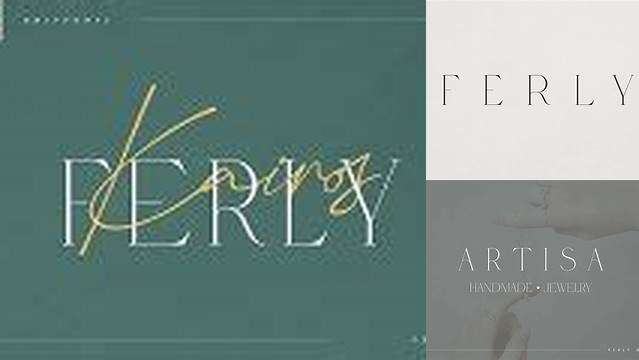
Ferly Free Font: Your Creative Edge
Hey everyone! Are you ready to inject some serious personality into your design projects? Then you absolutely have to hear about Ferly Free Font. This isn't just another typeface; it's a game-changer, a secret weapon, and a way to make your work genuinely stand out. We're diving deep into everything Ferly, from its unique characteristics to how you can use it to create stunning visuals. Let's get started, shall we?
What Makes Ferly Font Special?
Okay, so what actually makes Ferly Font so special? Well, a bunch of things! First off, itβs got this incredible versatility. You can use it for everything from bold headlines to delicate body text. It's like the Swiss Army knife of fonts! Beyond that, there's a certain playful elegance to it. It's not stuffy or boring; it's got character, a distinct personality that shines through in every letter. This makes it perfect for branding, websites, posters, and anything else where you want to make a statement. Seriously, guys, give Ferly a try β you won't regret it!
Unleashing Your Creativity with Ferly
Imagine you're starting a new project and need a font that speaks volumes. Ferly Font can be your go-to choice. Picture this: a vibrant poster for a local music festival, with "Ferly" splashed across the top in a bold, eye-catching style. Or maybe a sleek, modern website for a tech startup, using "Ferly" in the headings to add a touch of personality. The possibilities are truly endless. One of the coolest things about Ferly is how it adapts to different design styles. It can be modern and minimalist, or retro and whimsical, depending on how you use it. This flexibility is a major asset, allowing you to maintain a consistent brand identity across all your materials while still keeping things fresh and exciting. So, next time you're feeling stuck in a creative rut, remember Ferly β it might just be the spark you need!
Ferly Font: A Deep Dive into its Unique Characteristics
Ferly Font isn't just any font; it has a unique set of characteristics that make it stand out from the crowd. From its meticulously crafted curves to its perfectly balanced letterforms, every detail has been carefully considered. The fontβs weight is just right β not too heavy, not too light β making it incredibly readable in a variety of sizes and contexts. But what really sets Ferly apart is its personality. It has a certain warmth and friendliness that makes it feel inviting and approachable. This is a font that people will connect with on an emotional level, which is crucial for building brand loyalty and creating a lasting impression. So, when you're choosing a font, remember that it's not just about aesthetics; it's about conveying a feeling, and Ferly excels at that.
Using Ferly for Branding: Creating a Lasting Impression
When it comes to branding, the font you choose can make or break your image. Ferly Font offers a fantastic opportunity to create a lasting impression. Think about some of the world's most iconic brands β they all have a distinct visual identity, and their font plays a crucial role in that. By using Ferly consistently across all your branding materials, from your logo to your website to your marketing collateral, you can create a cohesive and recognizable brand image. Ferly's unique personality can help you stand out from the competition and communicate your brand values effectively. Whether you're going for a modern, playful, or sophisticated look, Ferly can be adapted to suit your needs. So, if you're looking to elevate your branding game, consider incorporating Ferly Font into your strategy β it could be the missing piece of the puzzle.
Ferly Font in Web Design: Enhancing User Experience
In the world of web design, user experience is paramount. A well-chosen font can significantly enhance readability, visual appeal, and overall engagement. Ferly Font offers a great option for improving user experience. Its clean lines and balanced letterforms make it easy to read on screens of all sizes, whether it's a desktop computer, a tablet, or a smartphone. By using Ferly in your website's headings and body text, you can create a visually appealing and user-friendly experience that keeps visitors coming back for more. Furthermore, Ferly's versatility allows you to create a consistent brand identity across your website and other marketing channels, reinforcing your brand message and building trust with your audience. So, if you're looking to optimize your website for user experience, don't overlook the importance of font selection β Ferly Font might just be the perfect choice.
Designing Logos with Ferly: Making Your Mark
Your logo is the face of your brand, so it's essential to choose a font that accurately reflects your identity and values. Ferly Font provides a unique opportunity to design a logo that truly stands out. Its distinct personality and versatility make it suitable for a wide range of industries and styles. Whether you're creating a logo for a tech startup, a creative agency, or a local bakery, Ferly can be adapted to suit your needs. You can experiment with different weights, sizes, and colors to create a logo that is both visually appealing and memorable. Furthermore, Ferly's scalability ensures that your logo will look great on everything from business cards to billboards. So, if you're looking to make your mark with a distinctive logo, consider exploring the possibilities with Ferly Font β it could be the foundation of your brand identity.
Ferly Font for Print Materials: From Business Cards to Brochures
While digital design often takes center stage, print materials still play a vital role in marketing and communication. Ferly Font translates beautifully to print, making it an excellent choice for everything from business cards to brochures. Its clean lines and balanced letterforms ensure that your text is legible and visually appealing, even in smaller sizes. By using Ferly consistently across all your print materials, you can create a cohesive brand identity that reinforces your message and builds recognition. Whether you're designing a sleek and professional business card or a vibrant and informative brochure, Ferly can help you achieve your desired look and feel. So, don't underestimate the power of a well-chosen font in print β Ferly Font could be the key to creating impactful and memorable marketing materials.
Combining Ferly with Other Fonts: Creating Harmonious Designs
While Ferly Font is a beautiful and versatile typeface on its own, it can also be combined with other fonts to create even more interesting and harmonious designs. The key is to choose fonts that complement Ferly's personality and style. For example, you might pair Ferly with a classic serif font like Times New Roman for a sophisticated and timeless look. Or, you could combine it with a modern sans-serif font like Helvetica for a clean and contemporary feel. Experiment with different combinations to see what works best for your specific project. Just be sure to maintain a sense of balance and avoid using too many different fonts, as this can create a cluttered and confusing design. With a little experimentation, you can create stunning visuals that showcase the beauty of Ferly while also incorporating other typefaces to add depth and interest.
Ferly Font: A Conclusion to its Creative Potentials
So there you have it, guys! A comprehensive exploration of Ferly Free Font and its boundless creative potential. From its unique characteristics to its versatility across various design applications, Ferly offers a fantastic way to add personality and impact to your projects. Whether you're designing logos, websites, print materials, or motion graphics, Ferly Font can help you create visuals that are both stunning and effective. Remember to consider the psychology of the font, the licensing terms, and the common mistakes to avoid. By mastering these aspects, you can unlock the full potential of Ferly Font and elevate your designs to the next level. So go forth, experiment, and unleash your creativity with Ferly β the possibilities are endless!